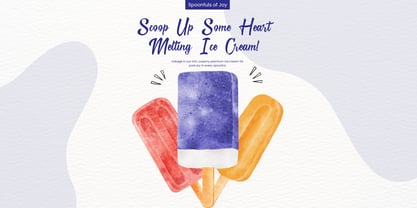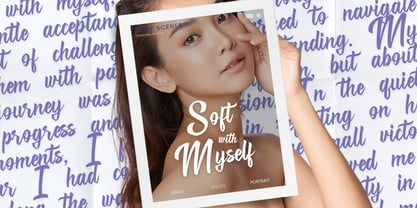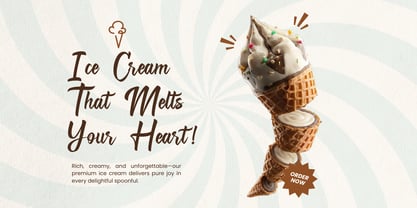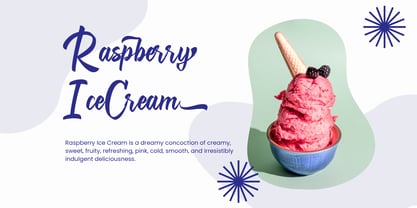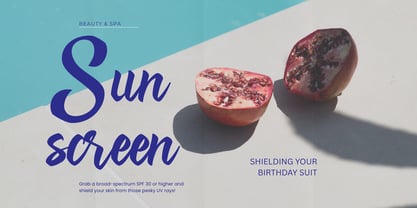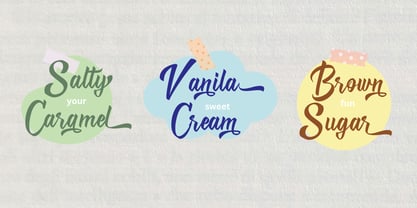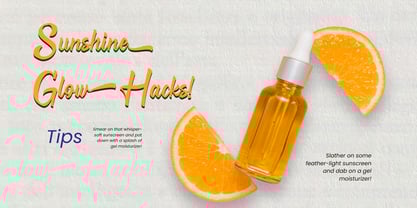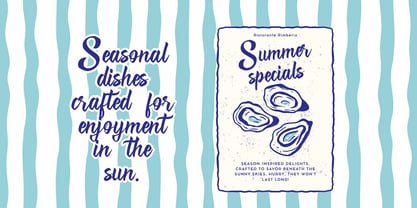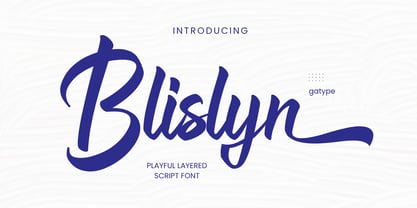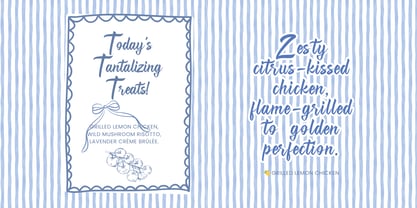
Blislyn Line
by Gatype
Blislyn – A Playful Layered Script Font
Let your words twirl, bounce, and shine with Blislyn, a charming layered script font full of personality. Designed with smooth curves and lively swashes, Blislyn offers stackable layers to create vibrant titles, standout logos, and joyful design moments. Perfect for playful branding, sweet packaging, and anything that needs a spark of fun.